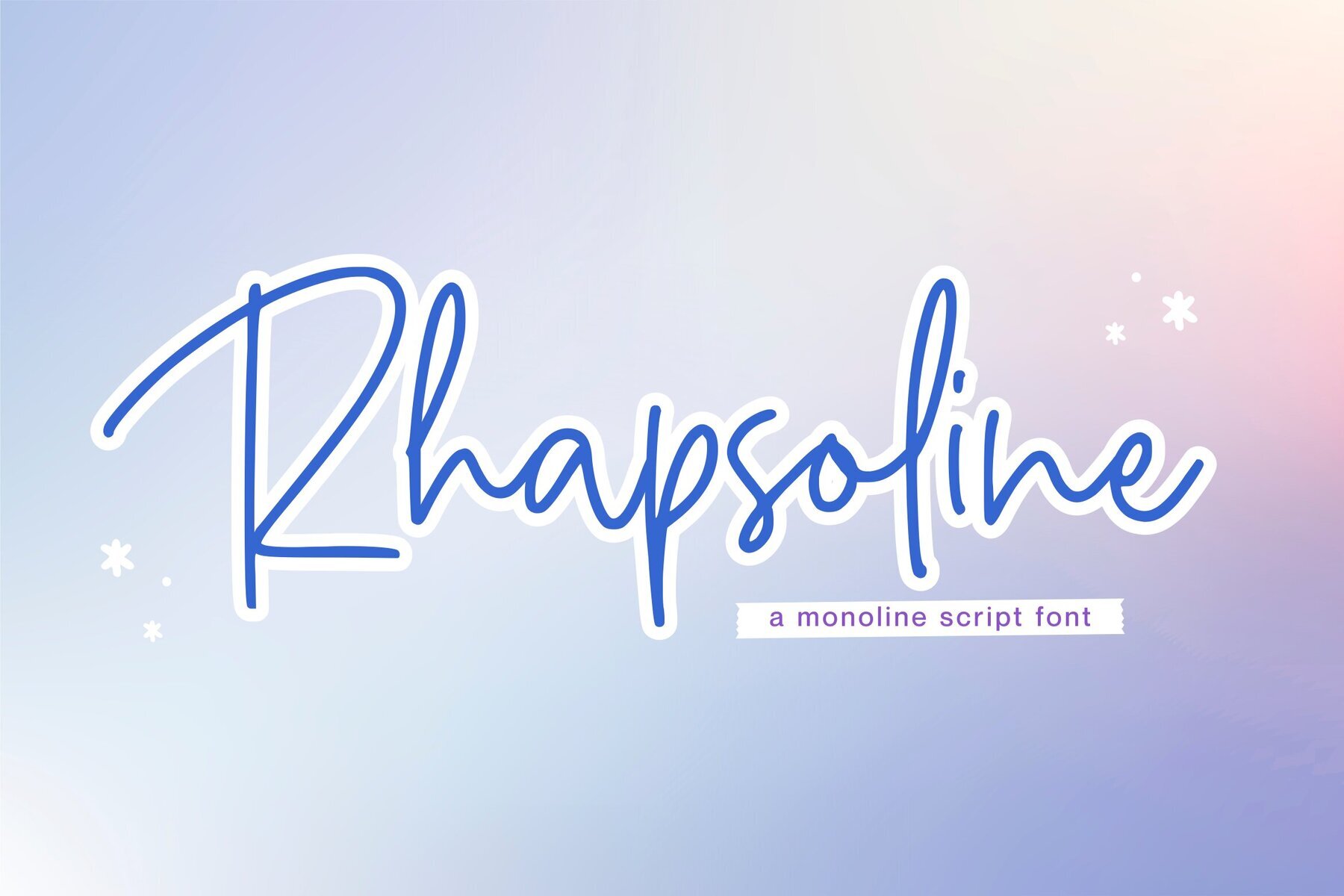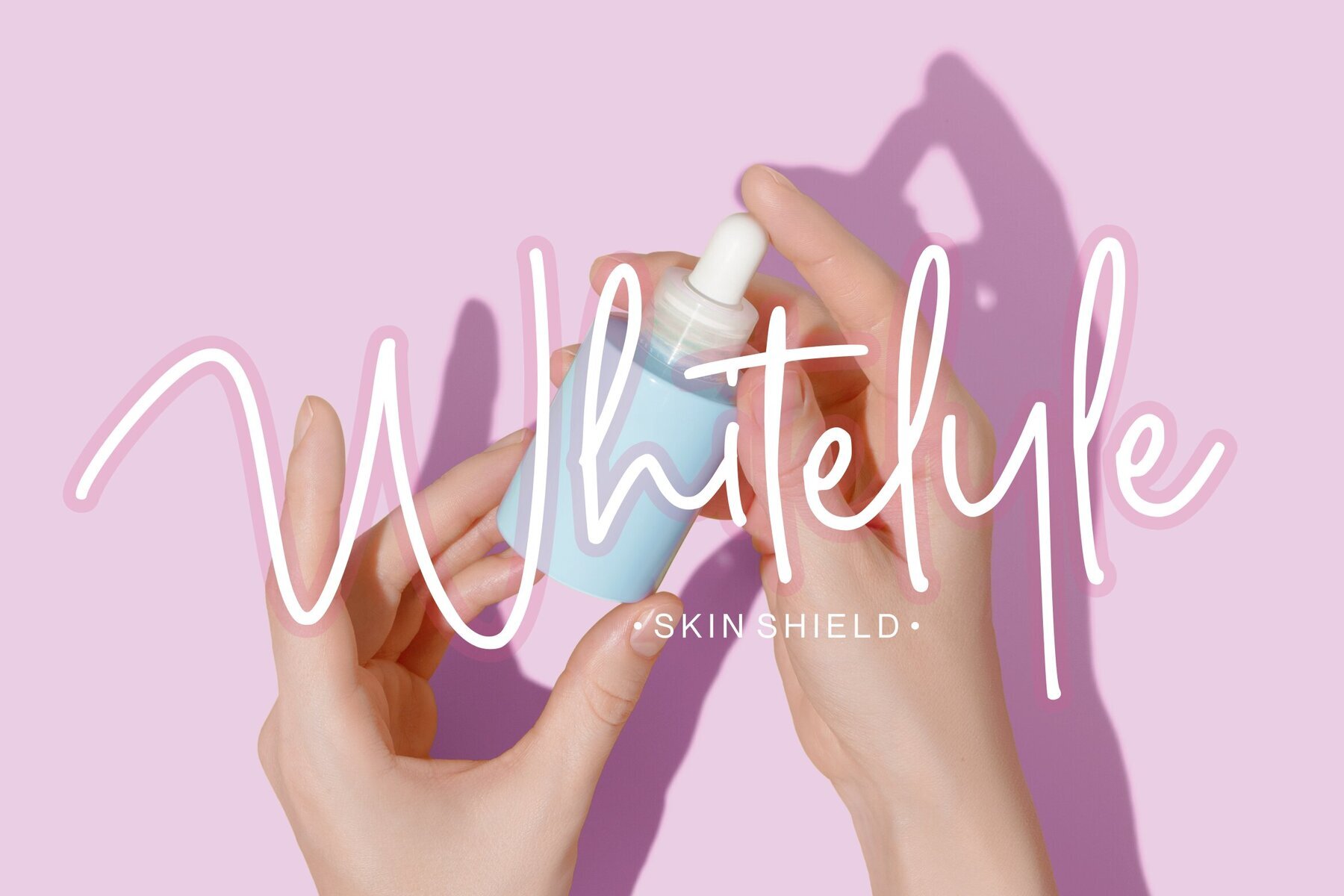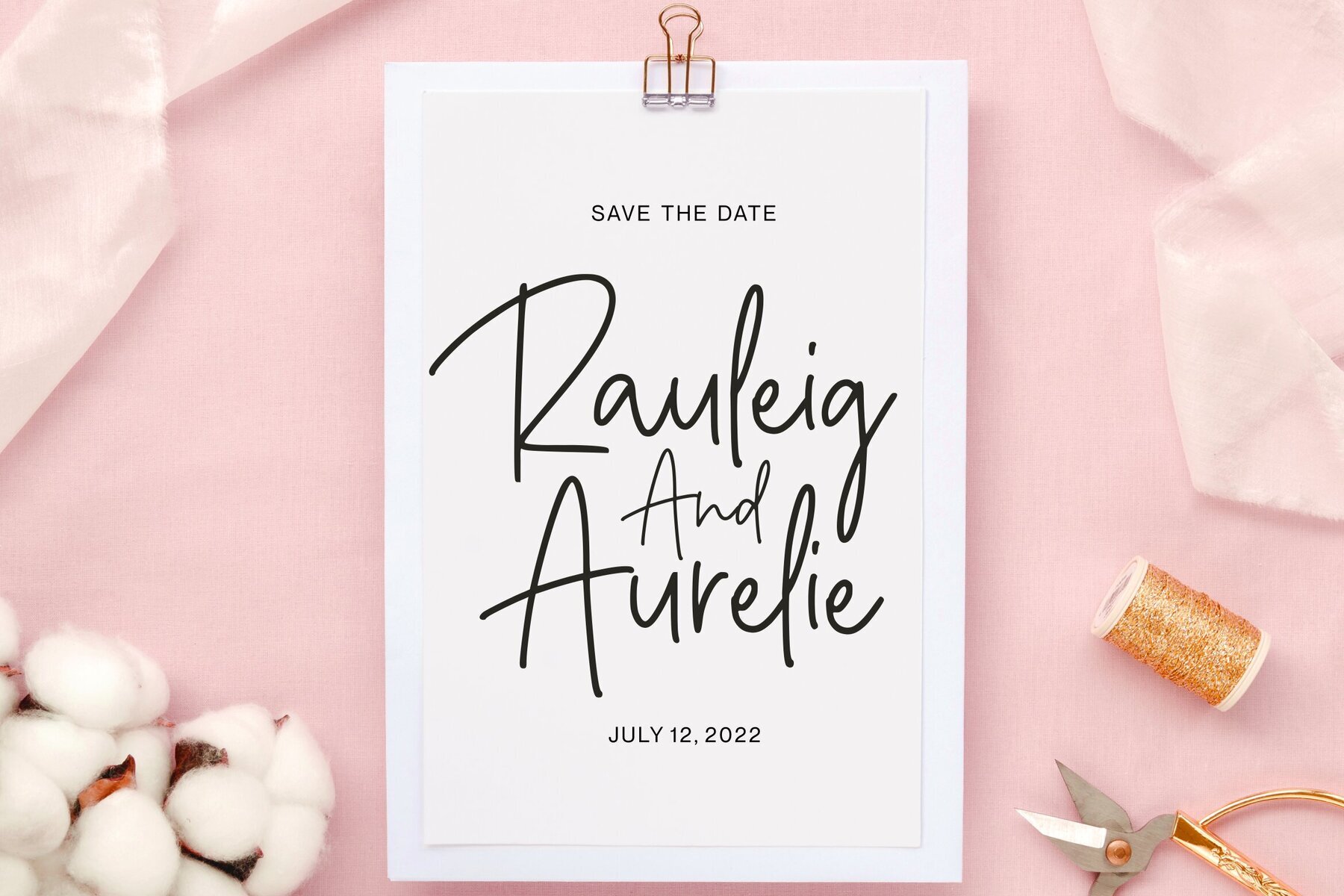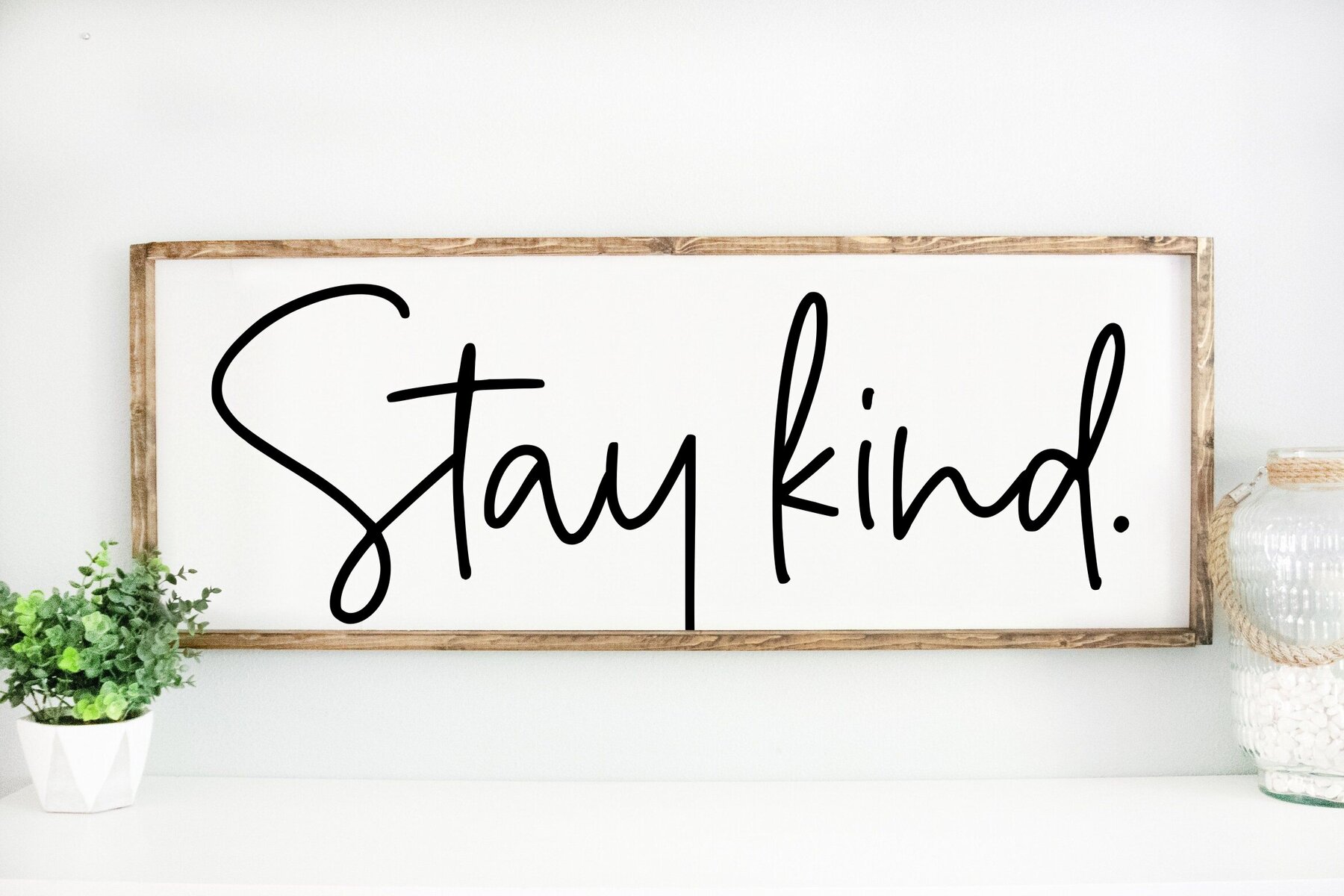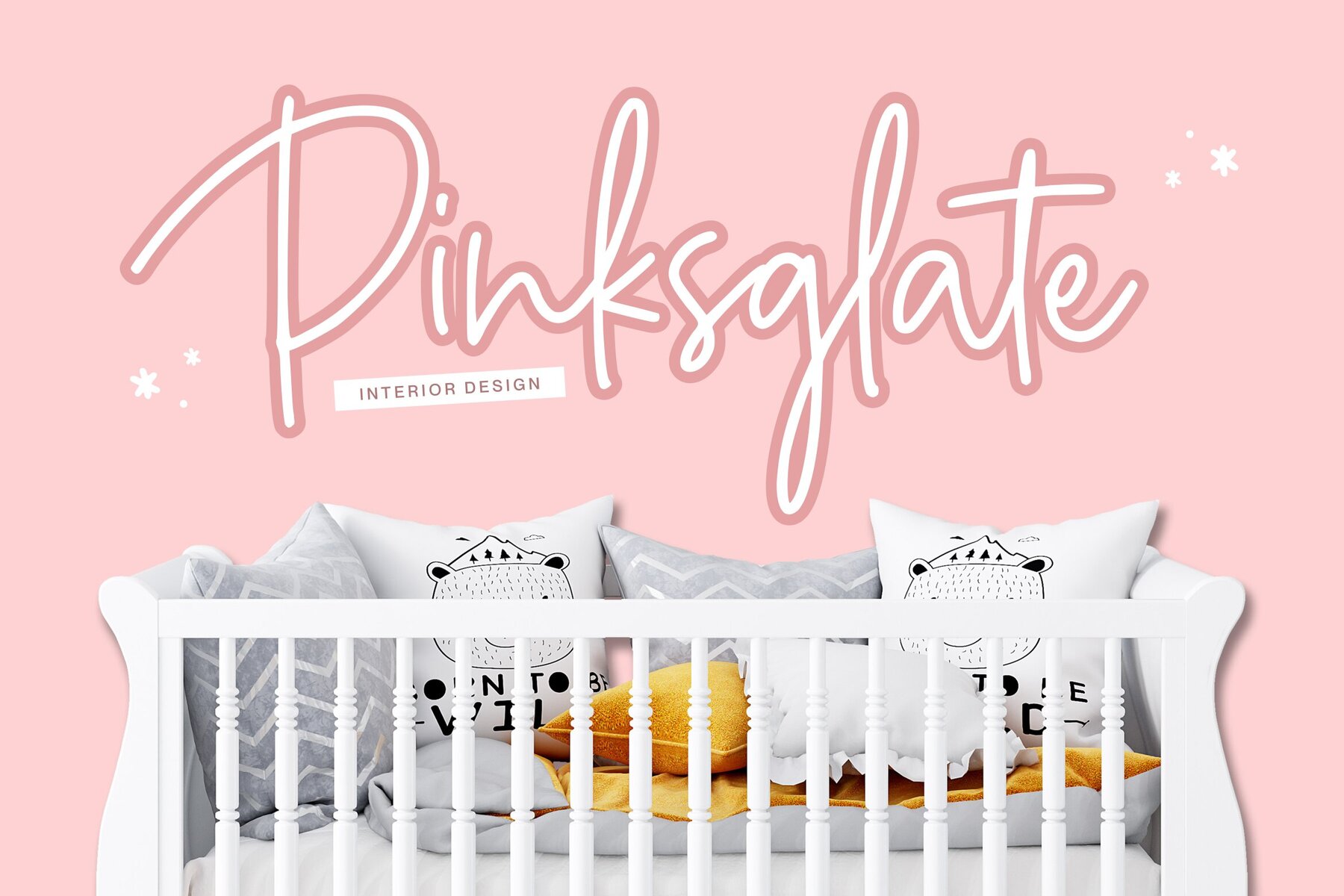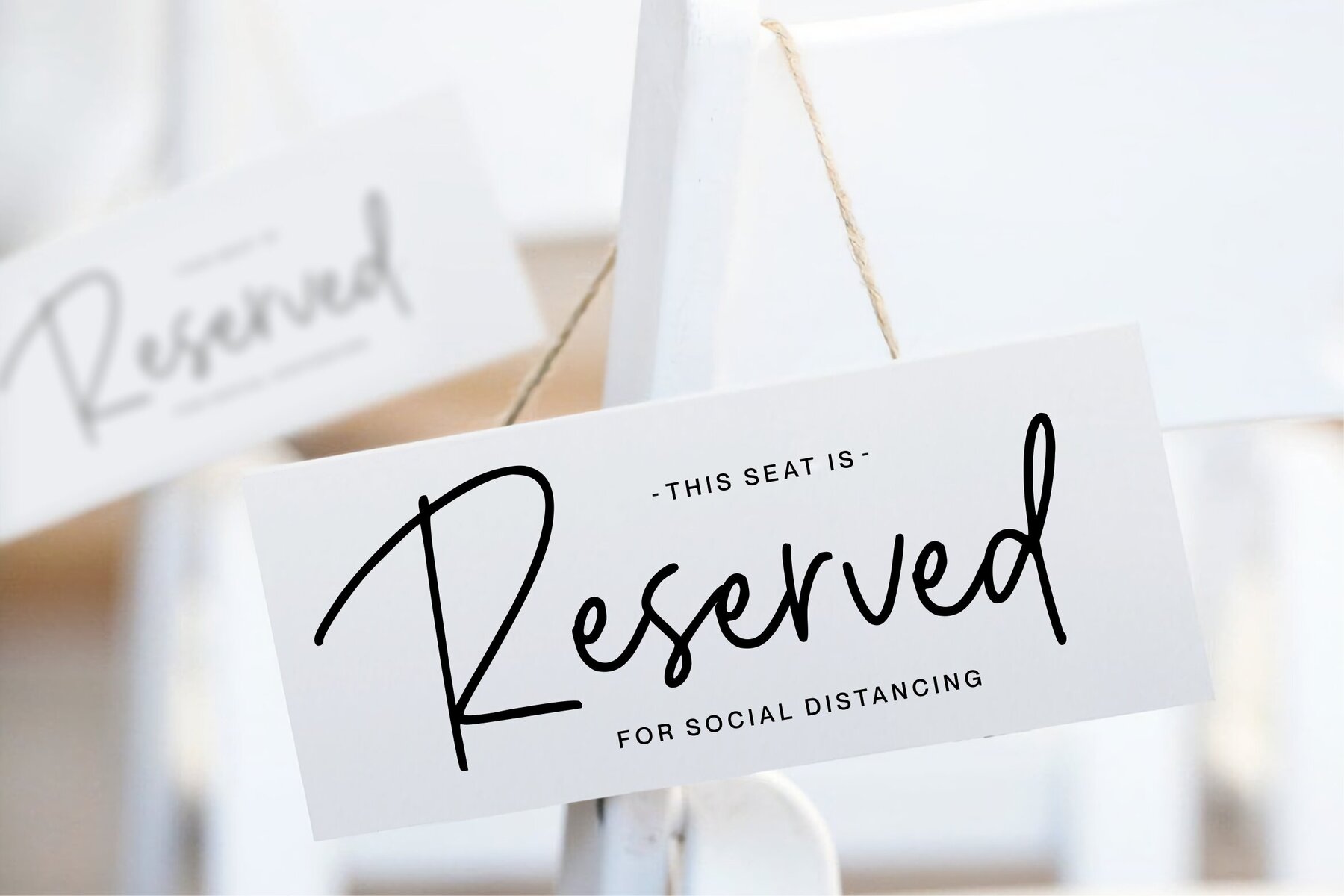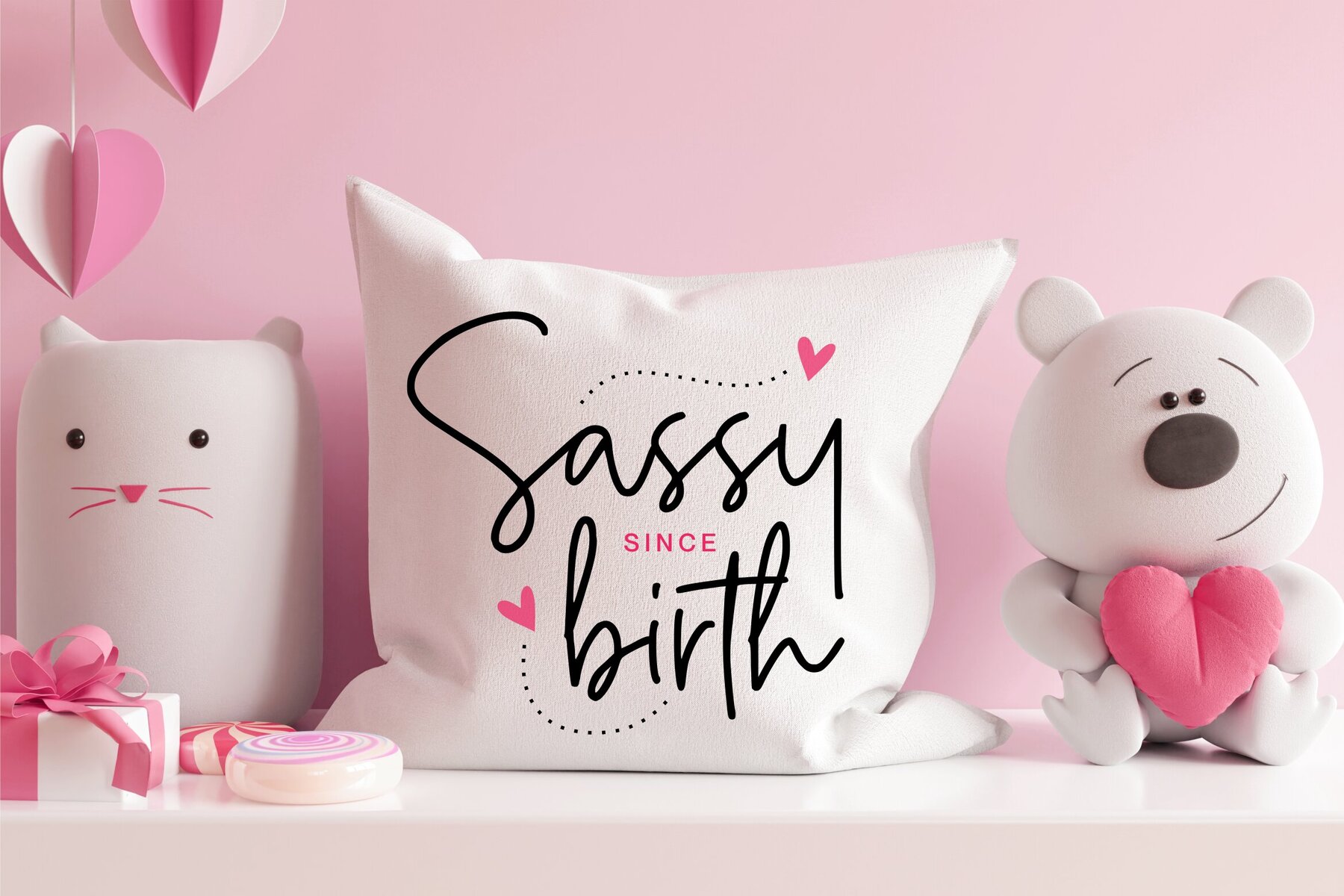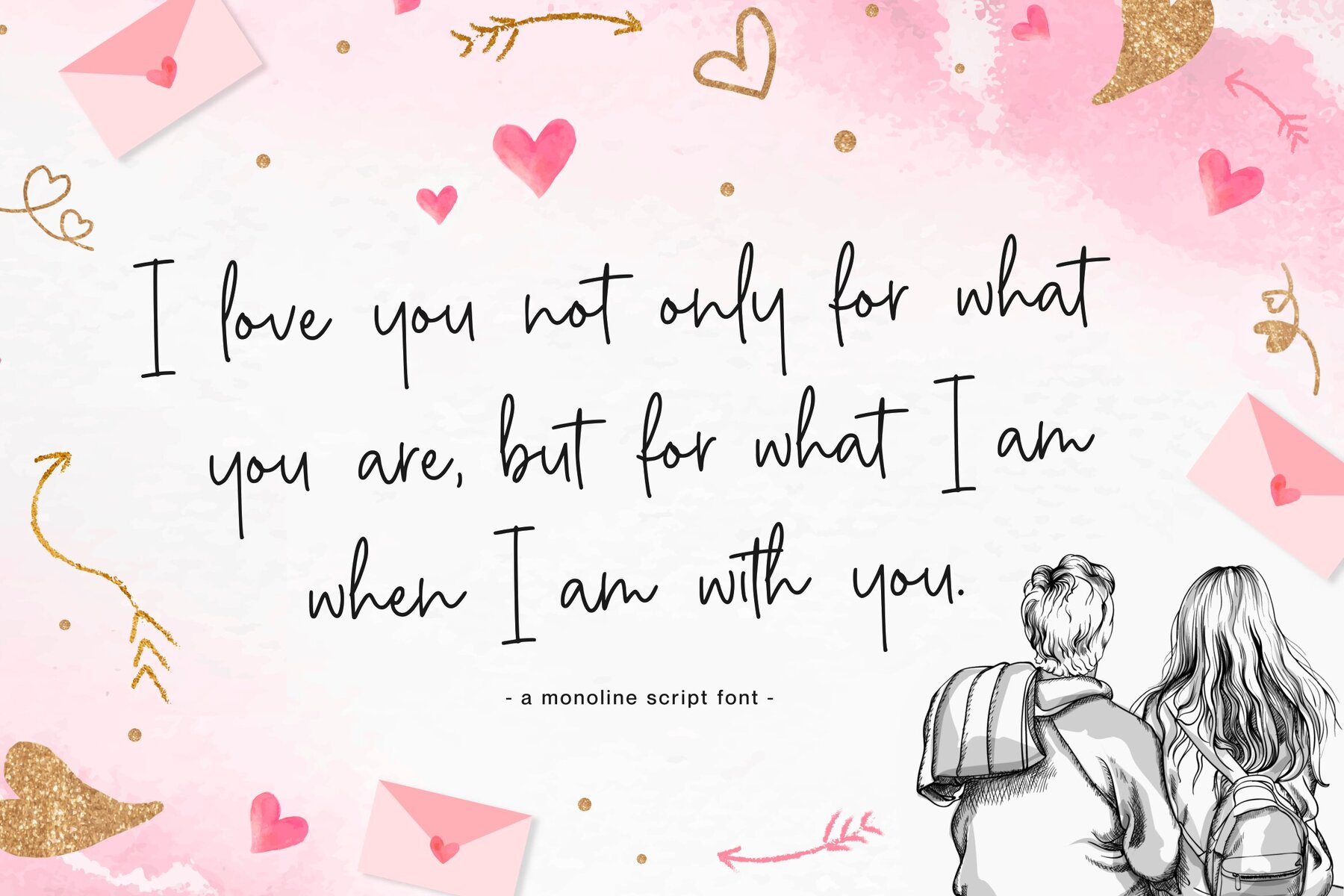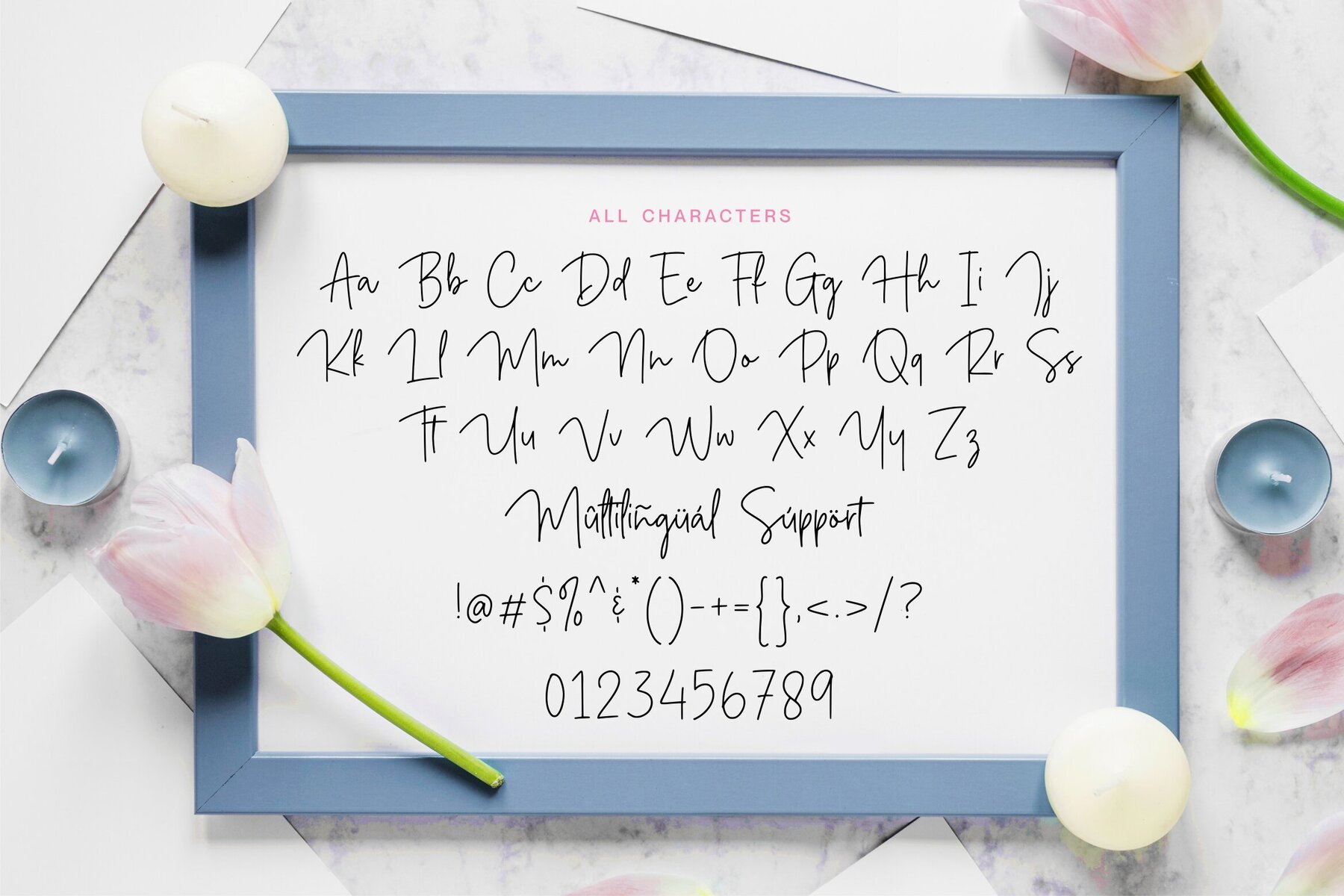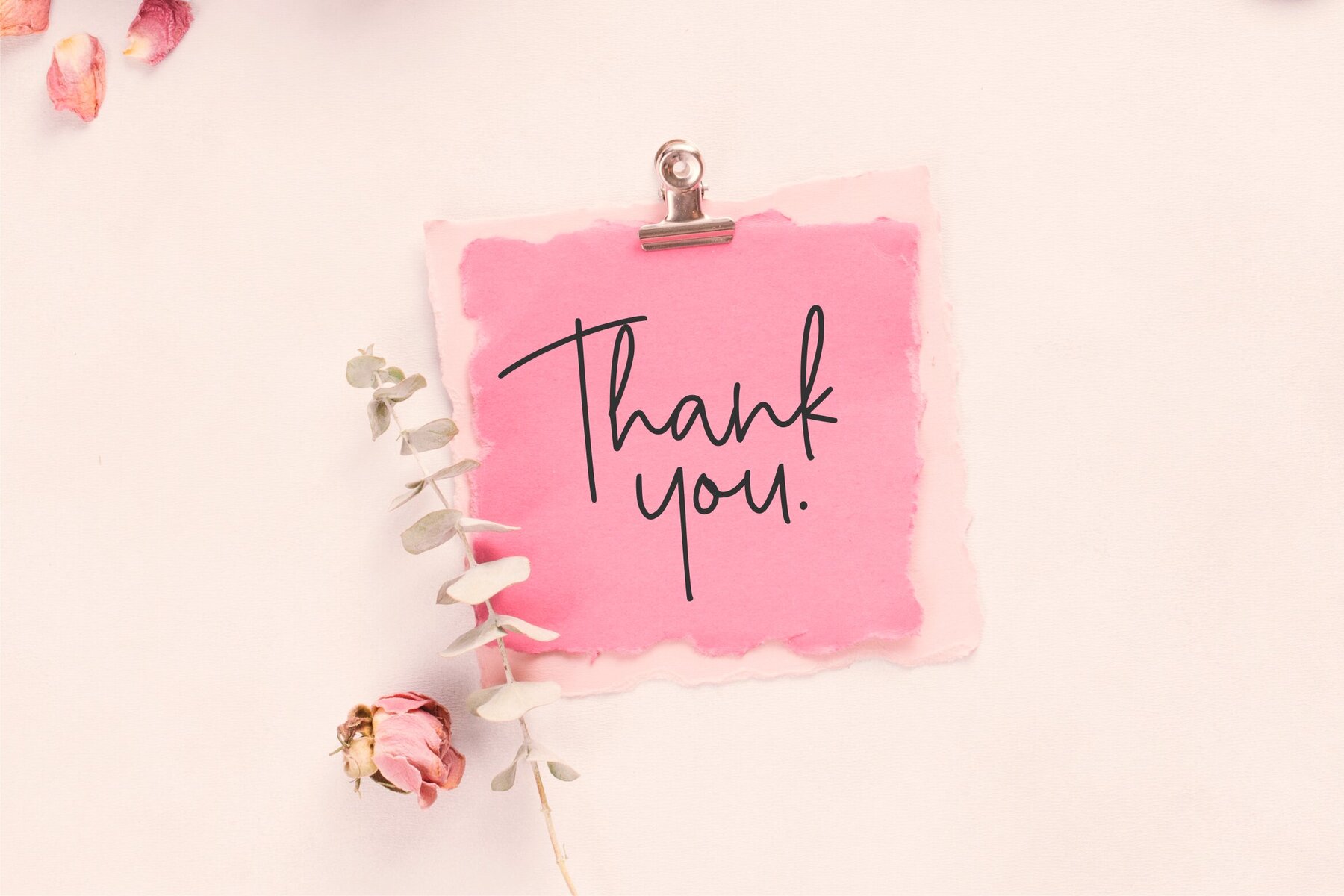
Rhapsoline Font
Rhapsoline Regular
The Rhapsoline typeface stands out as a versatile choice for graphic designers and creative directors seeking to enhance their projects. This font effortlessly adapts to various design needs, making it an excellent option for product packaging, branding initiatives, and editorial projects. With its elegant design, Rhapsoline also shines in social media graphics and wedding materials, adding a personalized touch to any creation. Features:Rhapsoline: A Versatile Choice for Creative Design
The Rhapsoline typeface invites creativity, offering designers the freedom to express unique ideas and captivate their audiences.